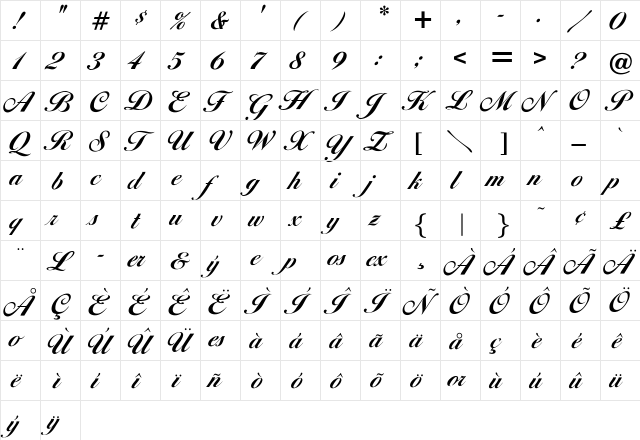
OPTIDiannaScriptBoldAgency Regular Font Preview
Design Context for OPTIDiannaScriptBoldAgency Typeface
OPTIDiannaScriptBoldAgency brings a calligraphic fluidity to the page — its connecting strokes and expressive curves give it an unmistakably human quality. Its bold stroke weight gives it real presence on the page.
Font Pairing: Combine OPTIDiannaScriptBoldAgency with a simple geometric sans for maximum contrast — the tension between flowing curves and clean structure is a classic typographic pairing.
Pro Tip: Pair OPTIDiannaScriptBoldAgency with a clean sans-serif for supporting text. The contrast between fluid script and geometric structure creates an elegant typographic hierarchy.